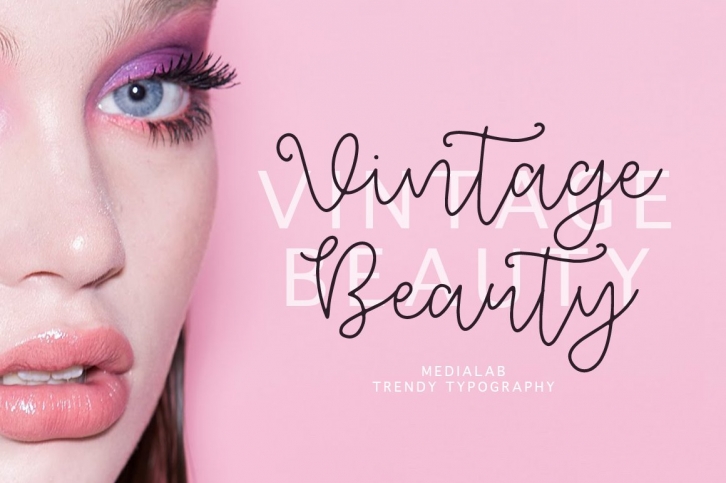
VINTAGE BEAUTY TRENDY TYPOGRAPHY
This modern calligraphy script has been attentively written, with gentle curves to produce a font thats completely distinctive and original. It contains a full set of lower & uppercase letters, a large range of punctuation, numerals, and multilingual support. Perfect for adding a elegant and unique touch to your lettering projects and branding
Also with their help, you can create a Wedding lettering or beautiful frame for your home. Or just use for your small business, book covers, stationery, marketing, magazines and more.
- A lot of ligatures